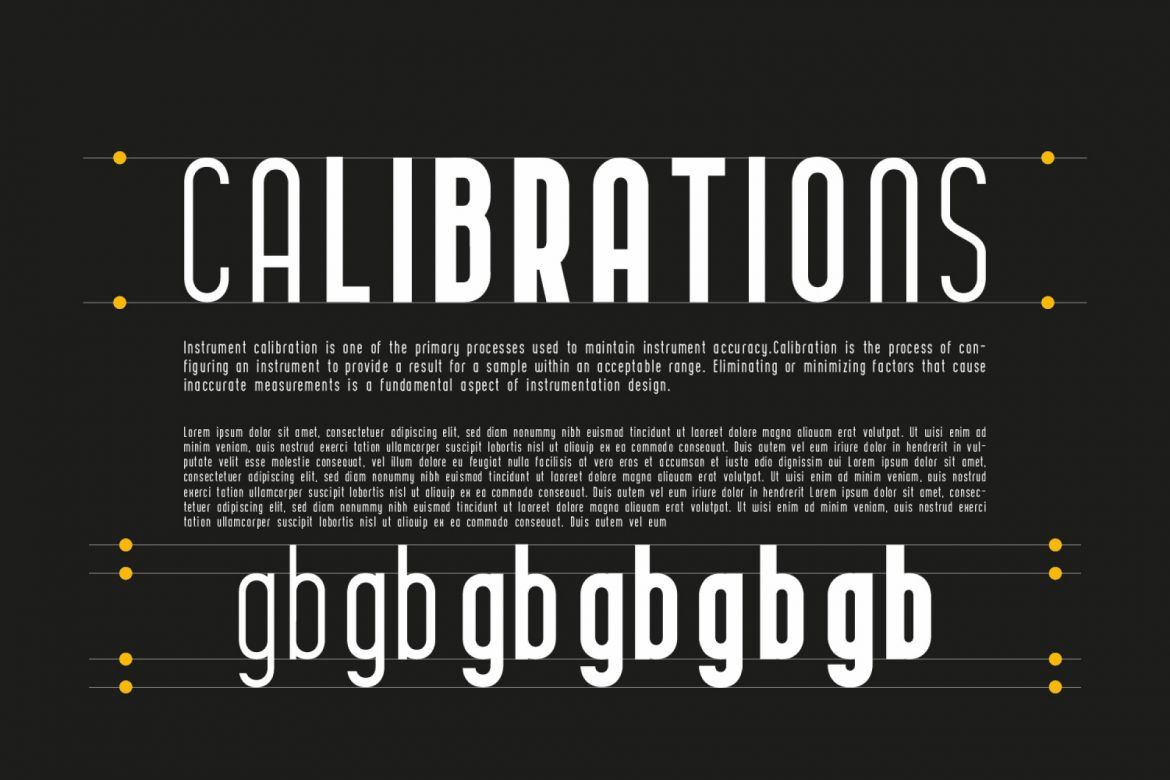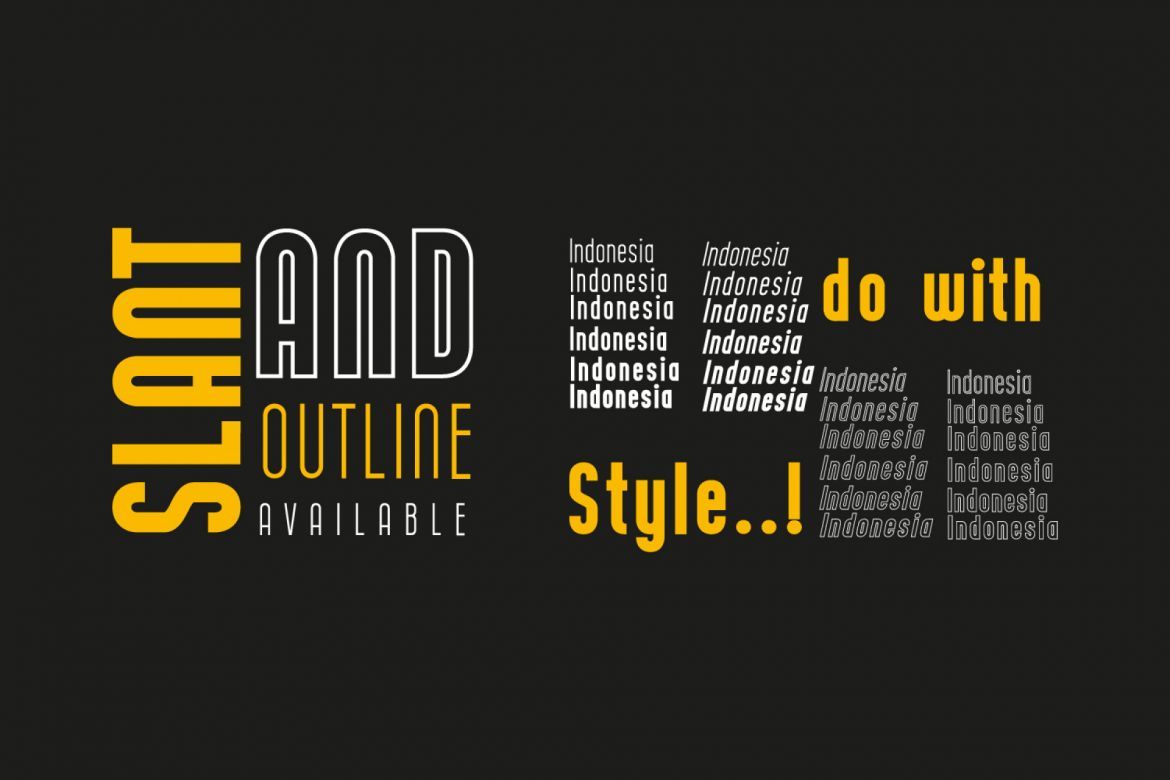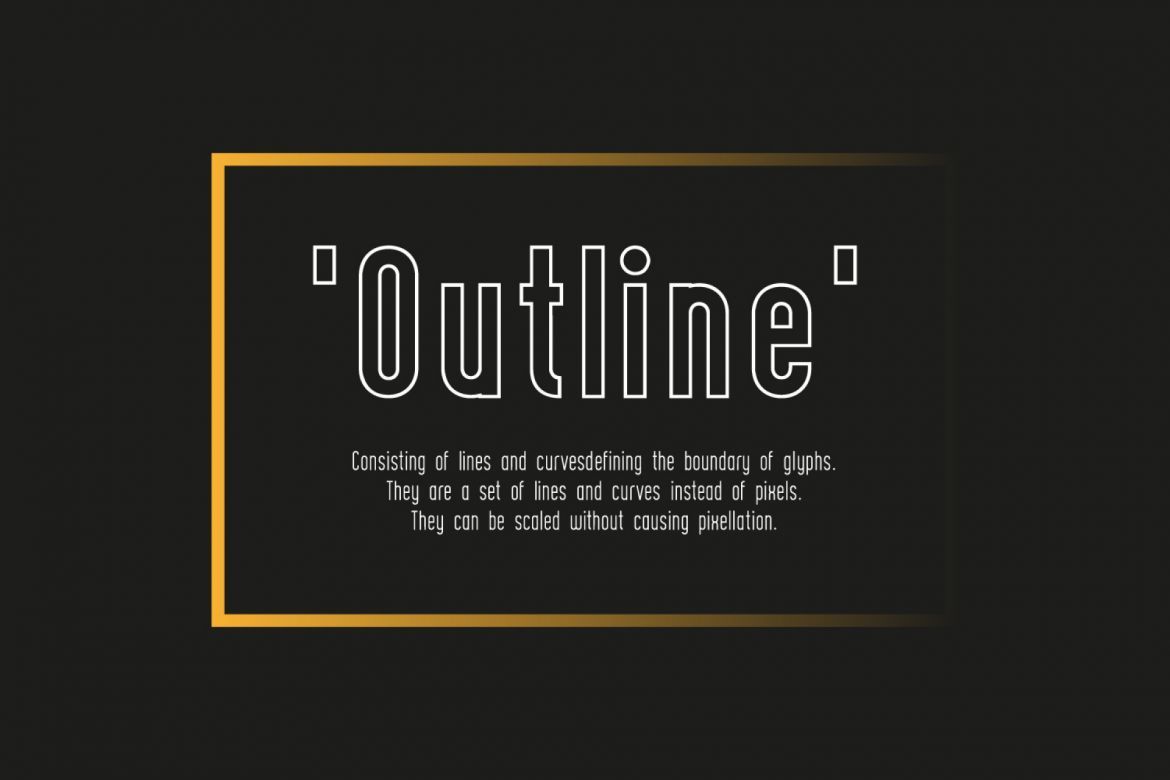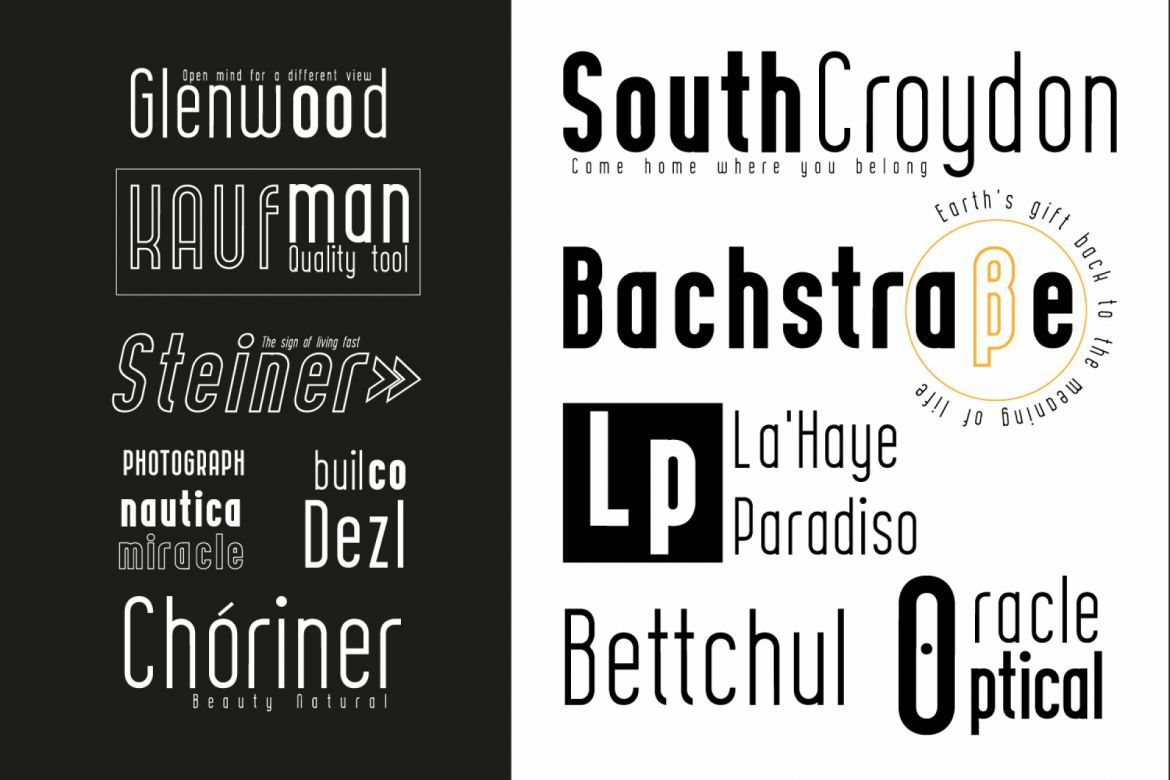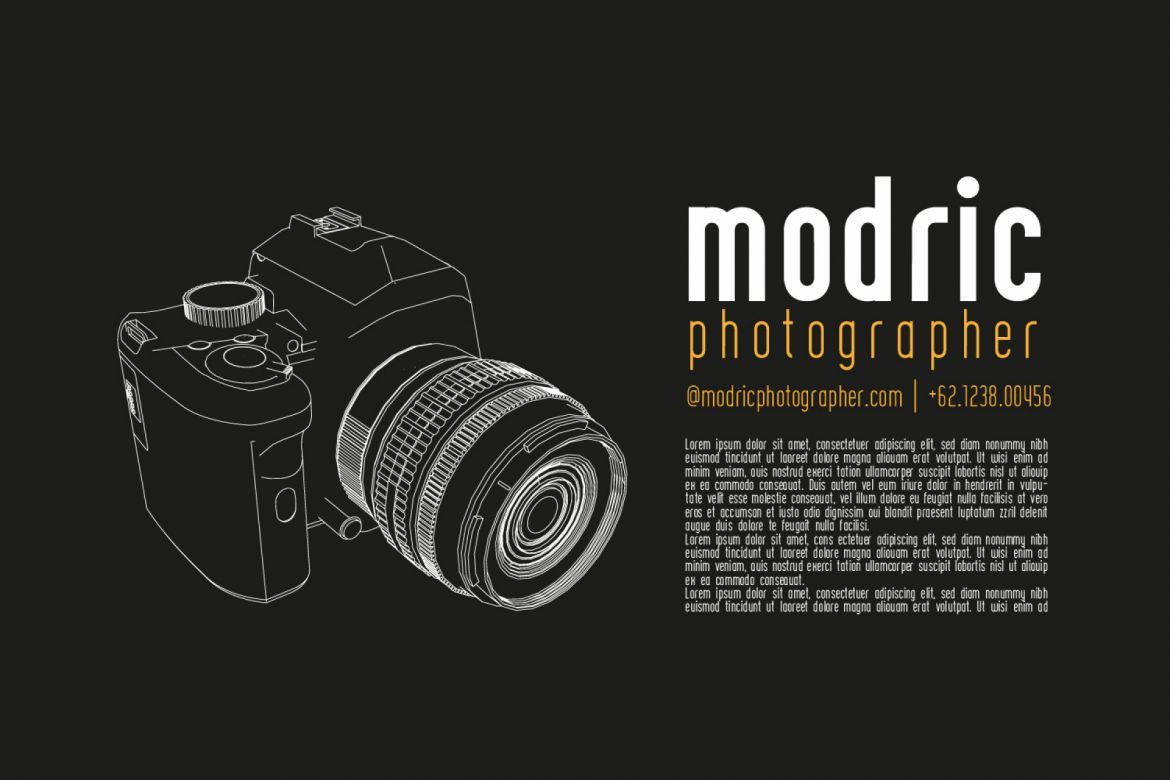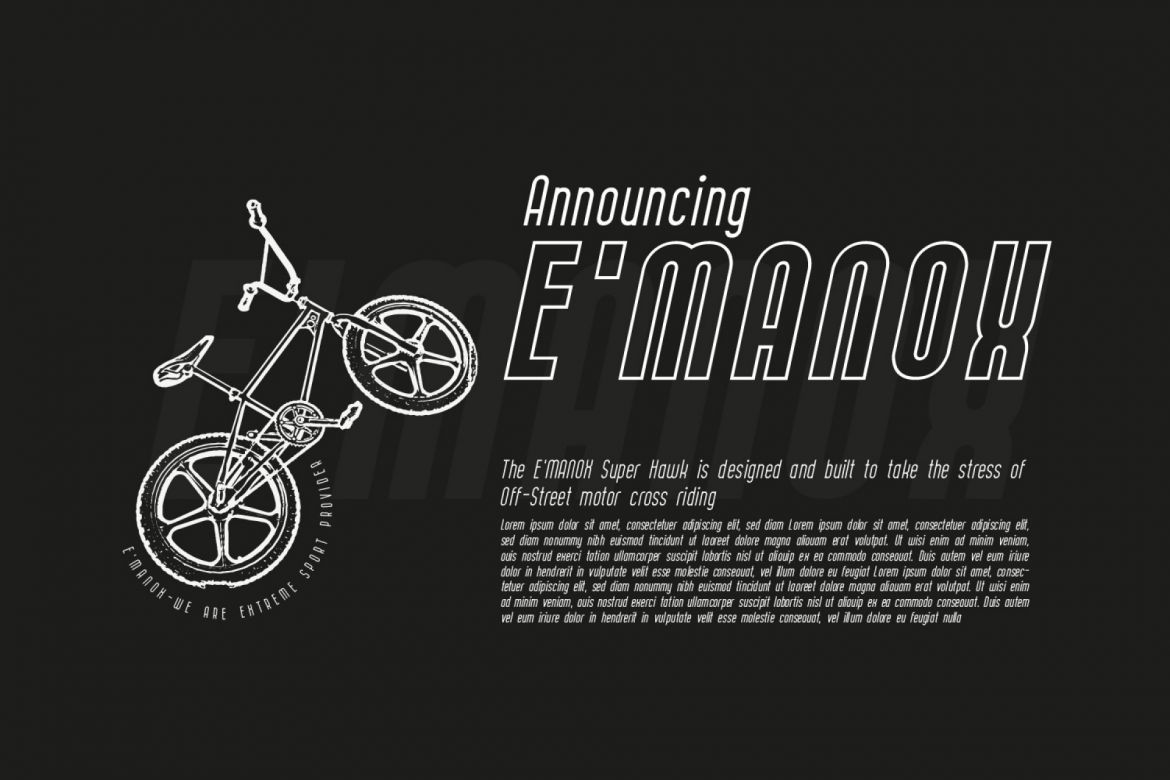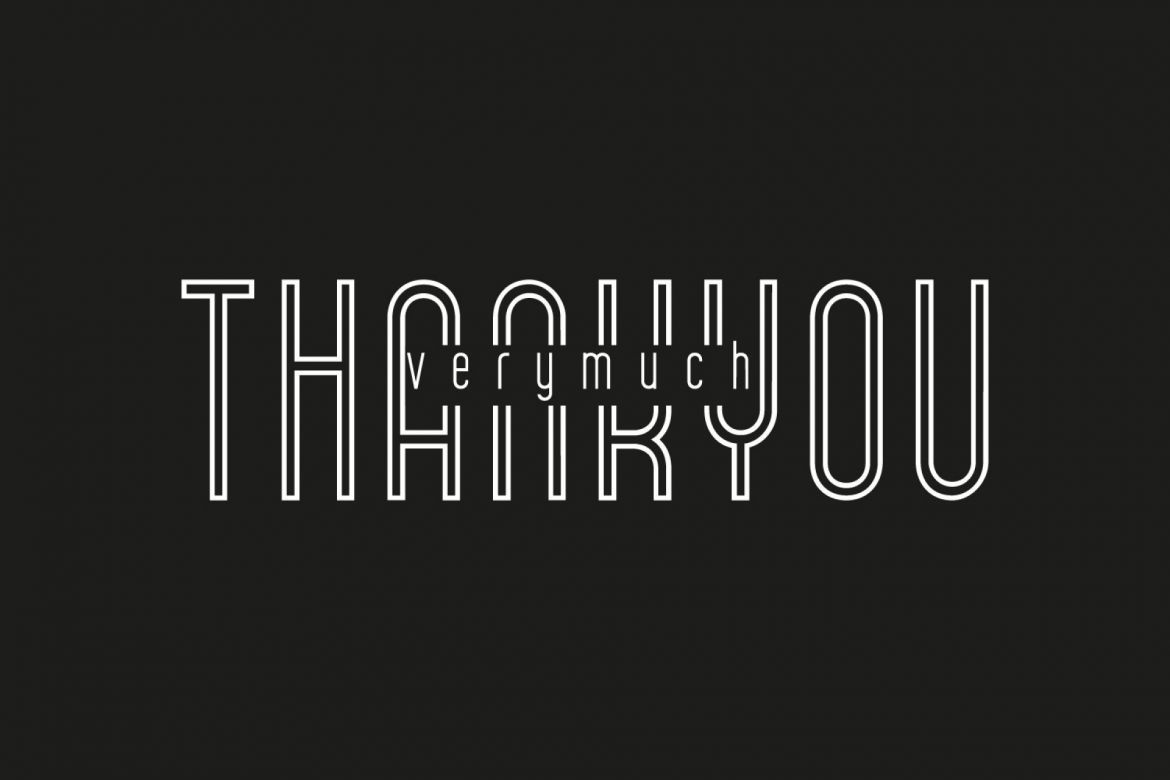
Curve Calibration Font Family
The Curve Calibration is an universal sans serif family. It has a minimal style of strokes, a closed aperture and geometric shapes. It comes in 24 variations which are perfect for large arrays of texts. The individually developed design of each glyph makes it possible to use it successfully as a display font.